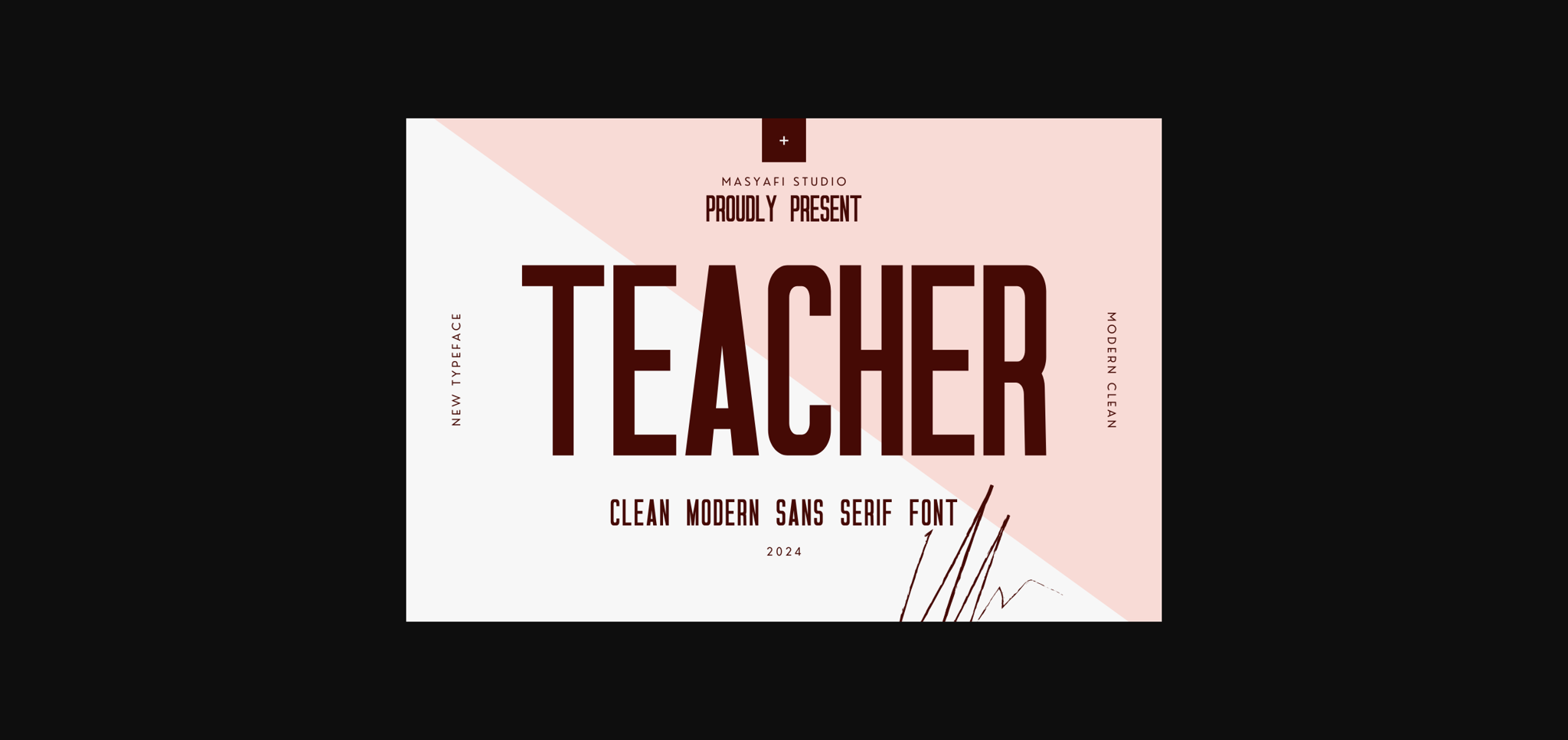
About Teacher Font
Teacher is a bold and clean sans serif font. A font that is very suitable for crafts, labels, quotes, SVG files, decorations, labels, logotypes, book covers, t-shirts, web, posters, stickers, wall art, or other ideas. A font suitable for Crafters and Graphic Designers. This font is also suitable for Social Media. Compatible with various tools such as Photoshop or Silhouette Design Project.